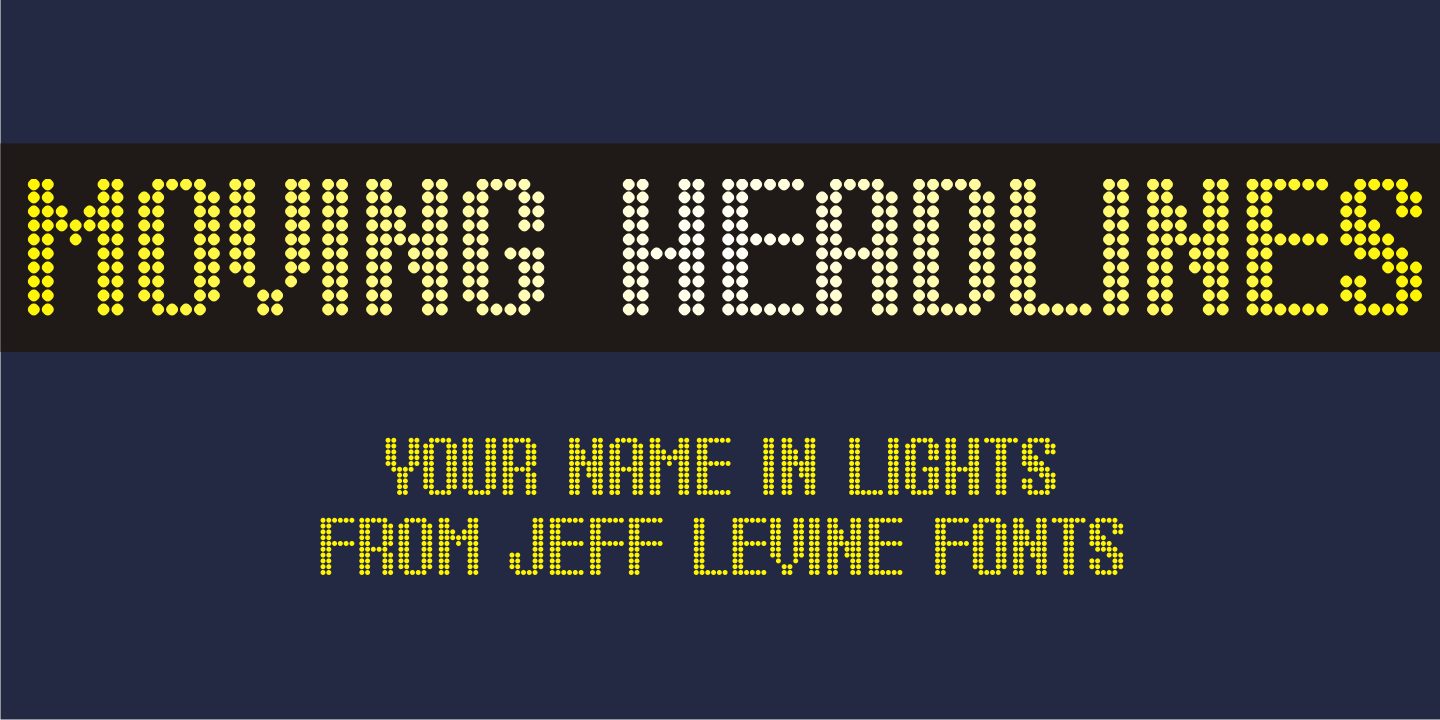
Discover the Moving Headlines JNL Font Free Download, a retro-inspired typeface designed by Jeff Levine and published by Jeff Levine Fonts. This font is available for free download for testing purposes, but you must purchase it for commercial use. Inspired by the 1928 Times Square “zipper” ticker, its pixelated, monospaced design captures the nostalgic charm of early digital displays.
The Moving Headlines JNL Font is perfect for vintage-style posters, news-themed graphics, digital signage, retro video game designs, and event promotions, where its bold, pixelated aesthetic delivers a striking, nostalgic impact. It excels in both print and digital formats, evoking the feel of classic news tickers.
What makes the Moving Headlines JNL Font Free Download exciting is its unique connection to the iconic Motograph News Bulletin, blending 1930s technology with modern versatility. Its clean, grid-based letters create a dynamic, attention-grabbing effect reminiscent of Times Square’s golden era.
The Moving Headlines JNL Font family includes a single style, focusing on its signature pixelated, monospaced look, ideal for cohesive, retro-themed typography.